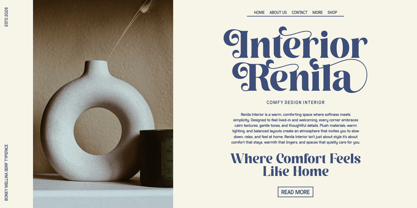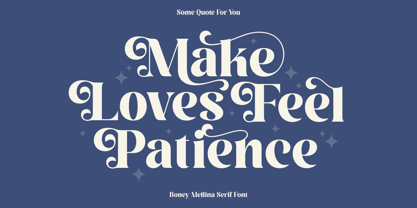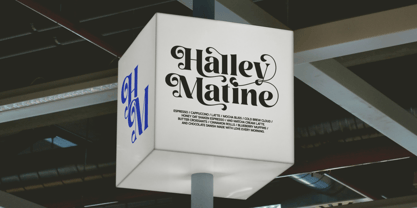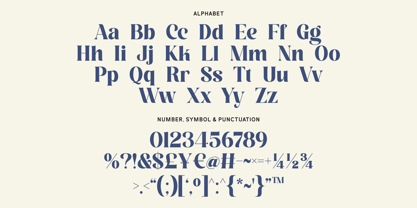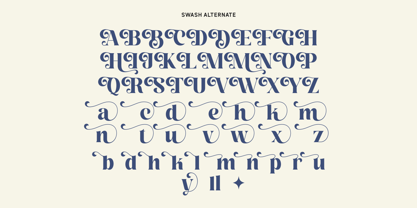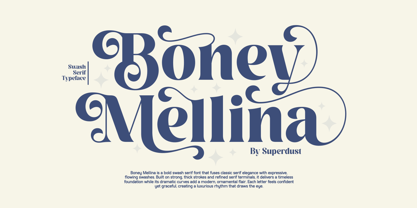
Boney Mellina
by Super Dust
The Boney Mellina Font Family was designed by Tri Iriyanto Wibowo and published by Super Dust. Boney Mellina contains 1 styles. More about this family
Boney Mellina is a graceful serif typeface that blends timeless elegance with expressive personality. Designed with beautifully crafted letterforms and adorned with unique, flowing swashes, this font captures the essence of sophistication while maintaining a warm and inviting character. Every curve and detail has been carefully refined to create a harmonious balance between classic serif traditions and modern decorative flair, making Boney Mellina a standout choice for designers seeking beauty, distinction, and versatility.
The name Boney Mellina evokes the image of a charismatic figure whose presence is both refined and unforgettable. Imagine a woman walking through a blooming garden at golden hour, carrying an effortless charm that turns ordinary moments into lasting memories. Her style is graceful yet confident, delicate yet strong. This captivating personality is reflected throughout the typeface, where elegant serifs meet dramatic swashes to create a visual rhythm full of movement and emotion.
Each character tells a story, transforming simple words into expressive works of art.
One of the defining features of Boney Mellina is its distinctive swash elements. These decorative flourishes extend naturally from selected characters, adding a luxurious and handcrafted feel without overwhelming the text. The swashes are designed to enhance readability while introducing a sense of romance, creativity, and sophistication. Whether used sparingly for subtle accents or prominently in large display settings, they bring an artistic touch that instantly elevates any design.
Boney Mellina is exceptionally well-suited for a wide range of creative applications. It shines beautifully in logo design, luxury branding, wedding invitations, fashion editorials, cosmetic packaging, boutique labels, social media graphics, book covers, greeting cards, and premium product presentations. Its elegant appearance also makes it perfect for signature logos, personal branding projects, and high-end marketing materials where a memorable visual identity is essential.
With its combination of classic serif structure, graceful swashes, and refined character, Boney Mellina offers more than just typography—it delivers an atmosphere of elegance and storytelling. It is a font created for designers who want their work to feel sophisticated, expressive, and timeless, ensuring every word leaves a lasting impression and every design communicates beauty with confidence.
Designers: Tri Iriyanto Wibowo
Foundry: Super Dust